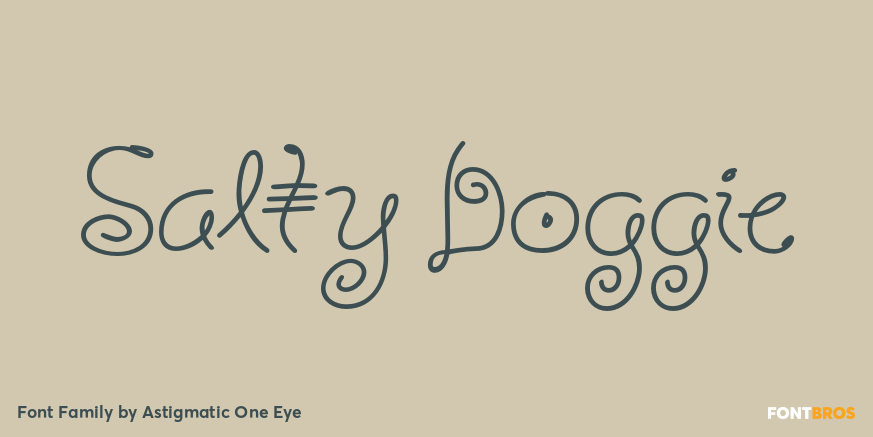
HomeFont BrosHandwrittenSalty Doggie HandwrittenSans SerifWacky Salty Doggie FacebookTwitterPinterestWhatsApp 1 of 1 About Salty Doggie A squirrely and creative hand drawn script.  DOWNLOAD NOW People also explored Bristol Maver Font Barista Font Green House Font Conundrum Font Romansta Beautya Font Handbeauty Font Right Font Tiebreak Font Better Pumpkin Font 129 0 TagsSalty Doggie Font Previous articleLibertad OfficeNext articleAvatar LEAVE A REPLY Cancel reply Comment: Please enter your comment! Name:* Please enter your name here Email:* You have entered an incorrect email address! Please enter your email address here Website: Save my name, email, and website in this browser for the next time I comment. Personal Use Free Austin Personal Use Free Read more about this font Where the Cookies Personal Use Free Read more about this font Short Message Personal Use Free Read more about this font Stronger Personal Use Free Read more about this font BLOG Best Fonts for T-Shirt Design – Top 2025 Picks In 2025, t-shirt design has become more than just fashion—it's a form of self-expression. Whether you're... Free vs Paid Fonts: Why Investing in Premium Fonts Is Worth It Transform Your Website: Elevate Your Typography with 7 Best Web Font Generators Exploring Font Trends